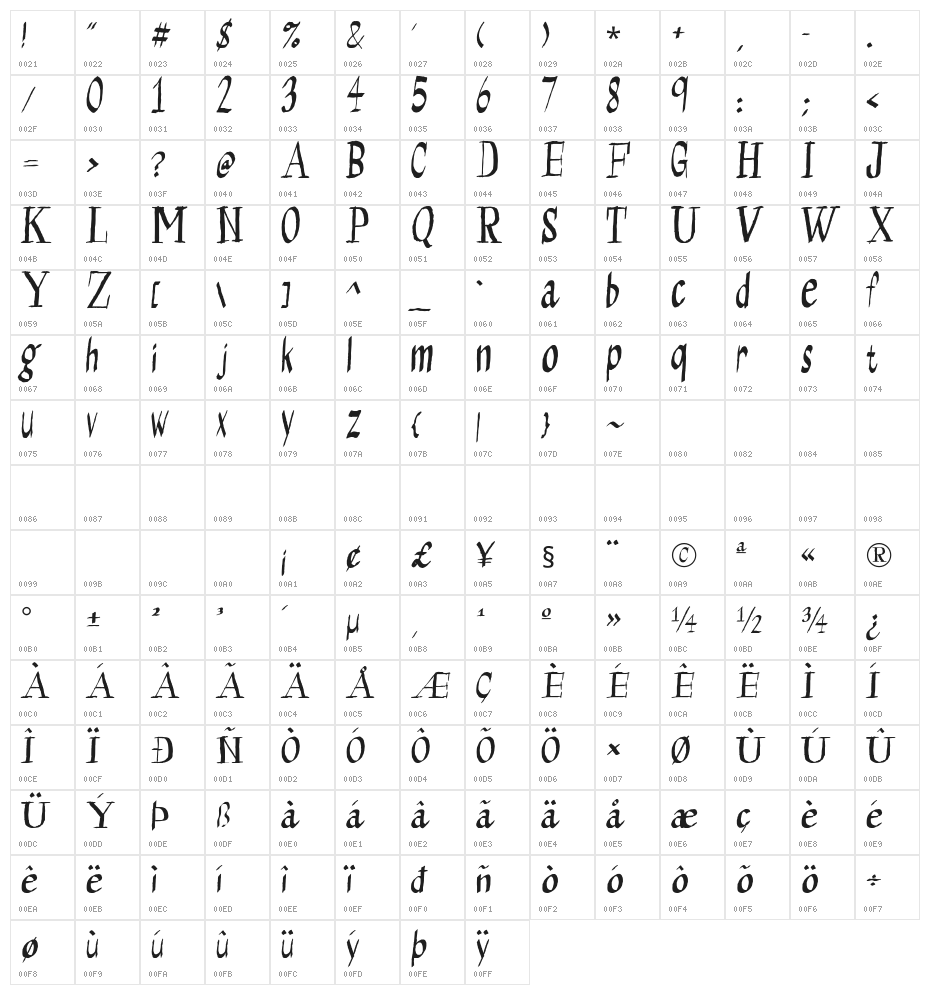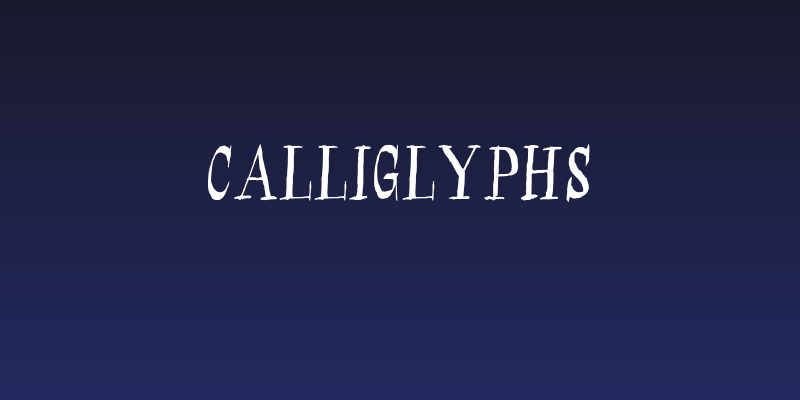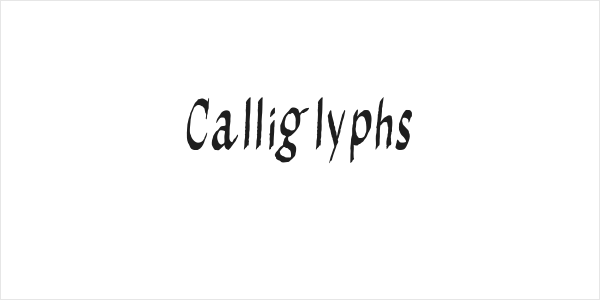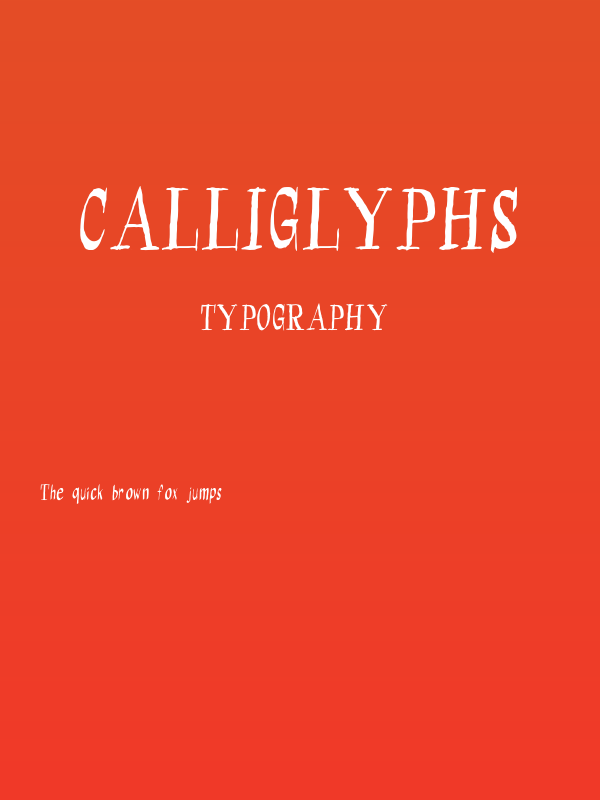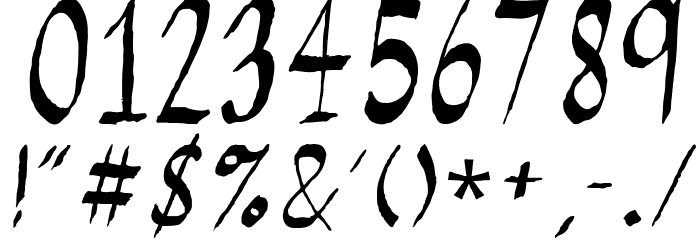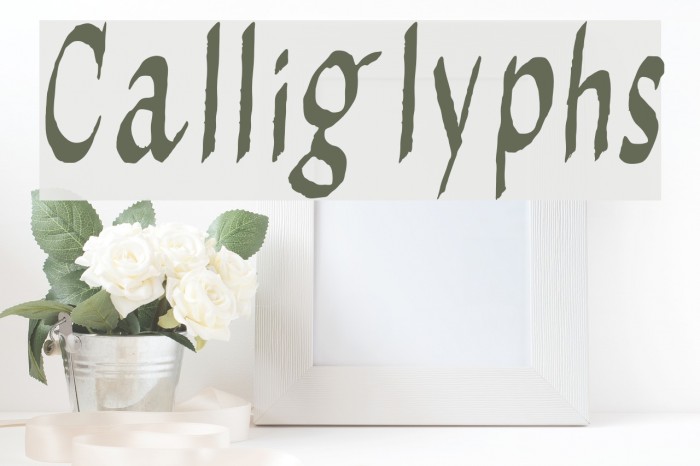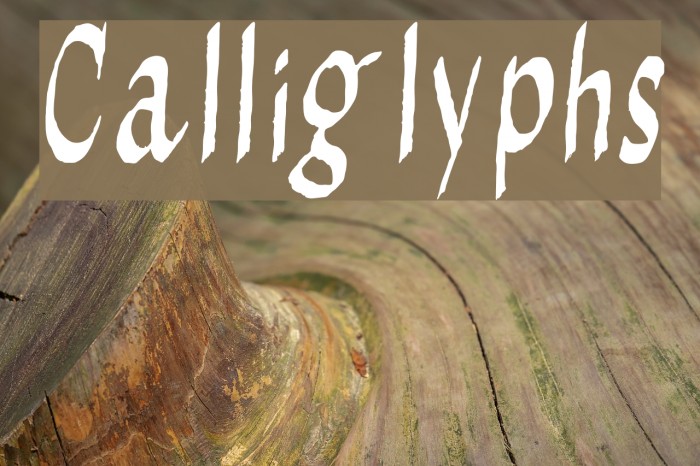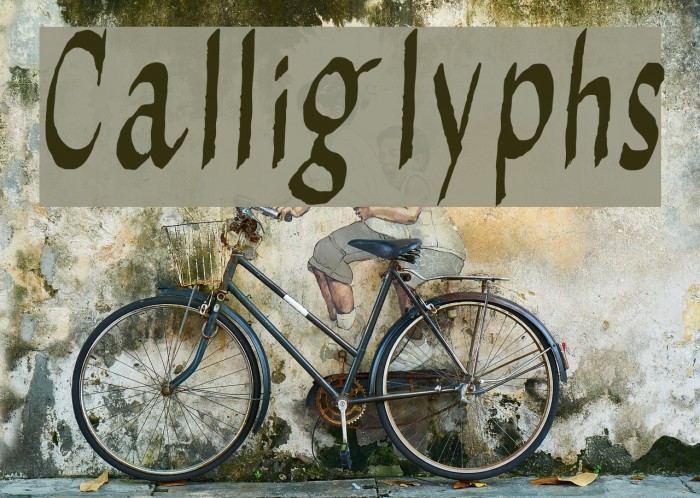
Calliglyphs Font
Calliglyphs Description
This font features a dynamic and expressive style, reminiscent of calligraphic handwriting. The characters are slightly irregular, giving them a hand-drawn feel that adds personality and flair. The uppercase letters are tall and slender, with varying stroke widths that create a sense of movement and energy. The lowercase letters maintain this lively aesthetic, with some characters featuring distinctive loops and curves. Numbers and special characters are crafted with the same artistic touch, making them stand out. Overall, this font exudes creativity and is perfect for projects that require a personal, artistic touch.
| Proposed Projects | Ideal for invitations, greeting cards, artistic posters, and branding that requires a personal touch. |